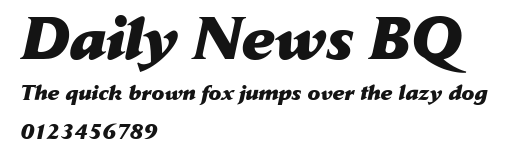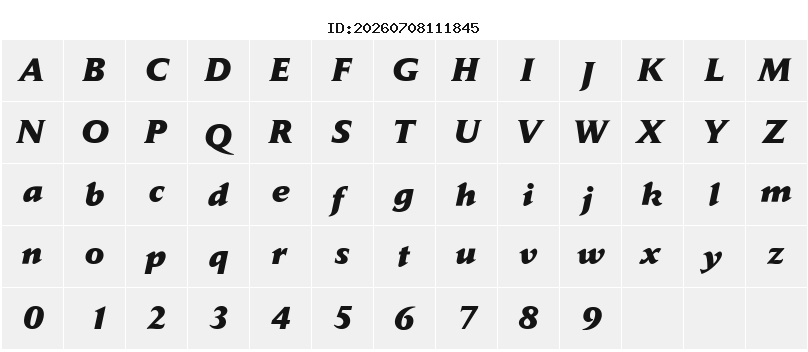
• Font Name: Daily News BQ
About Daily News BQ.ttf
Daily News BQ.ttf is a modern, elegant sans-serif font designed for ultimate readability and visual harmony. Perfect for branding, headlines, web design, and print materials.